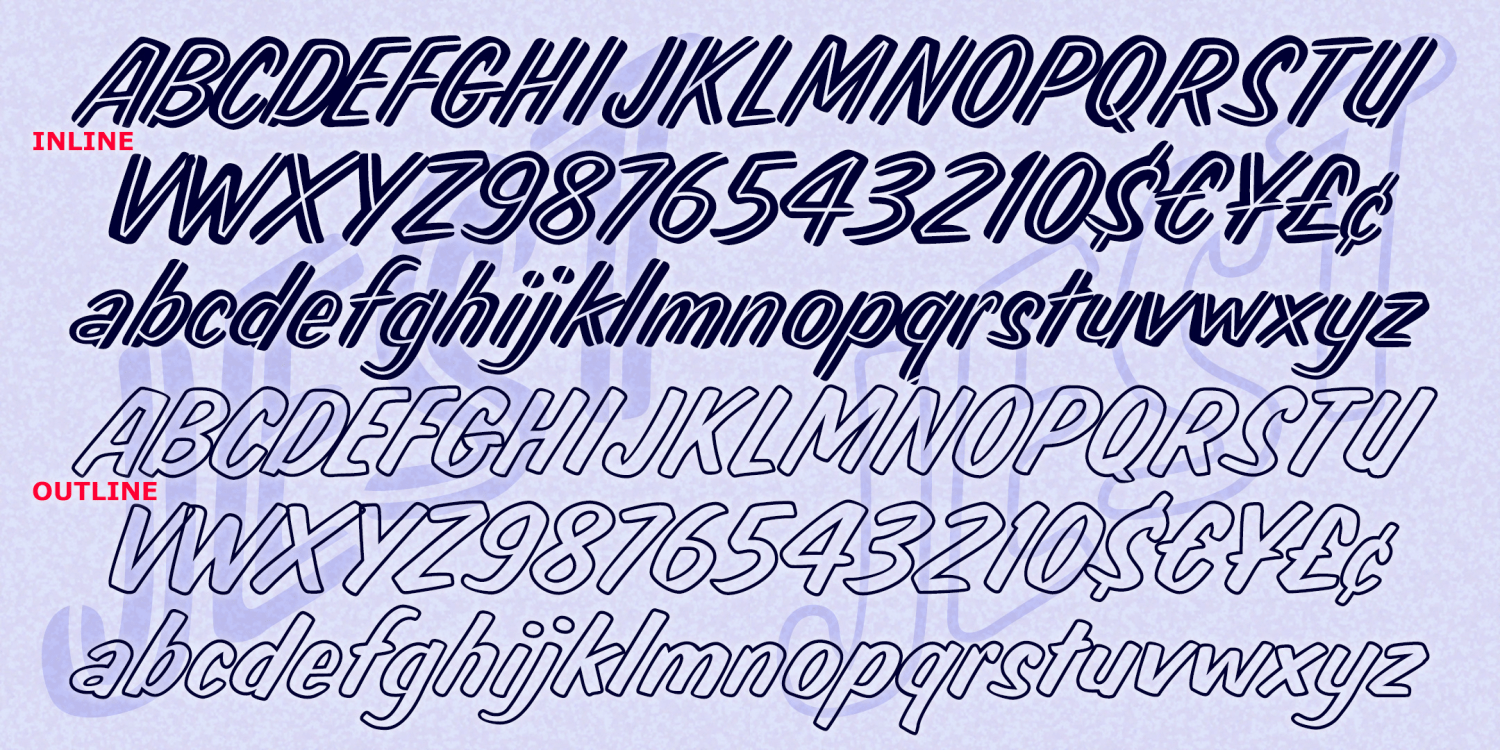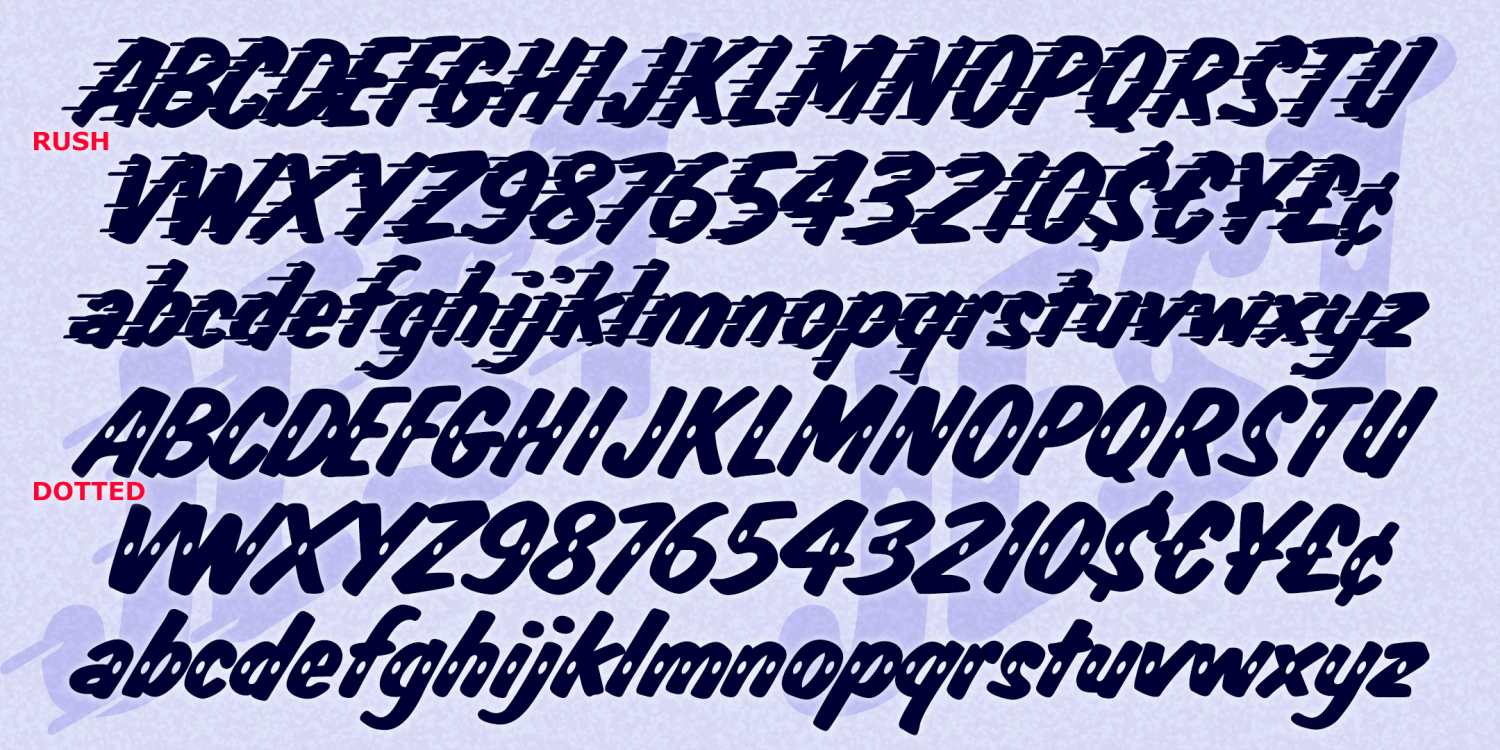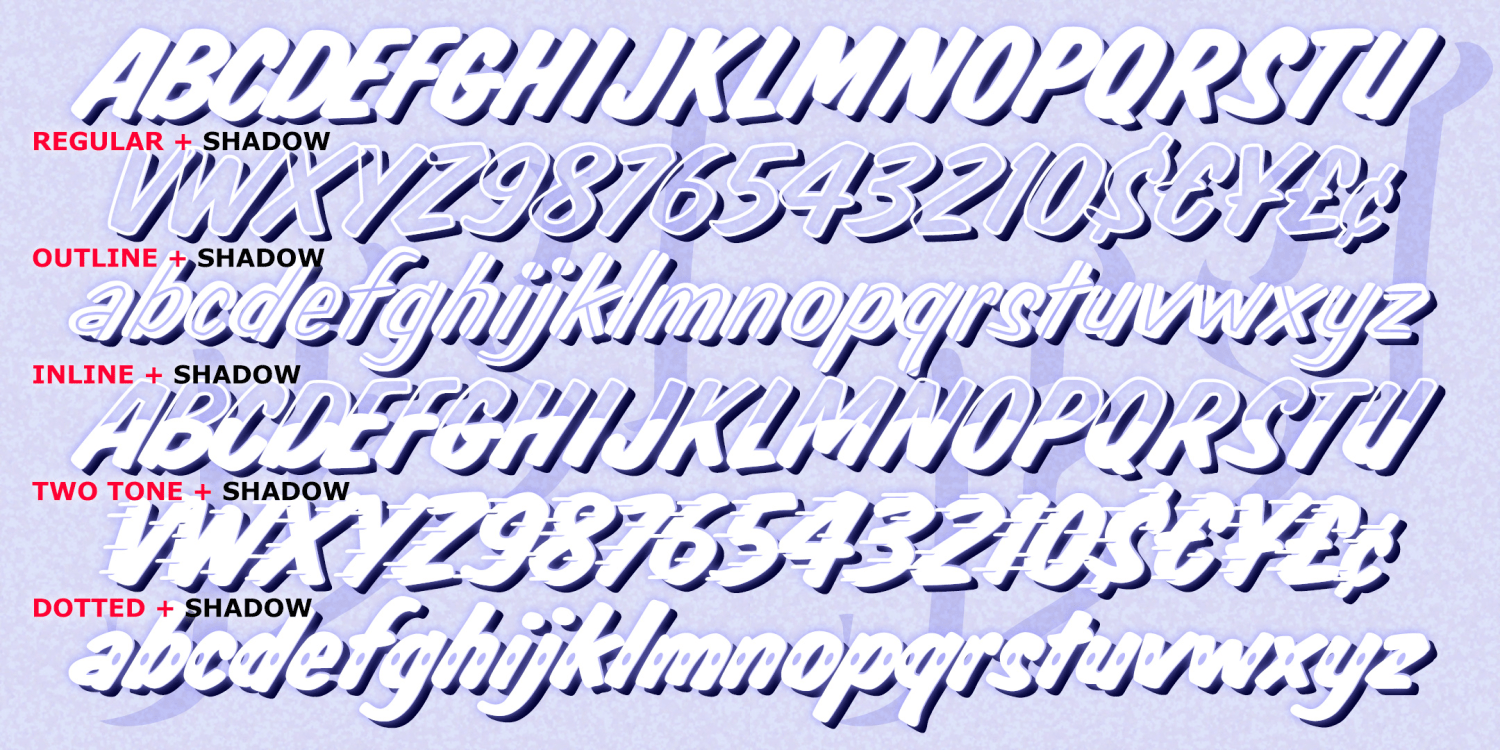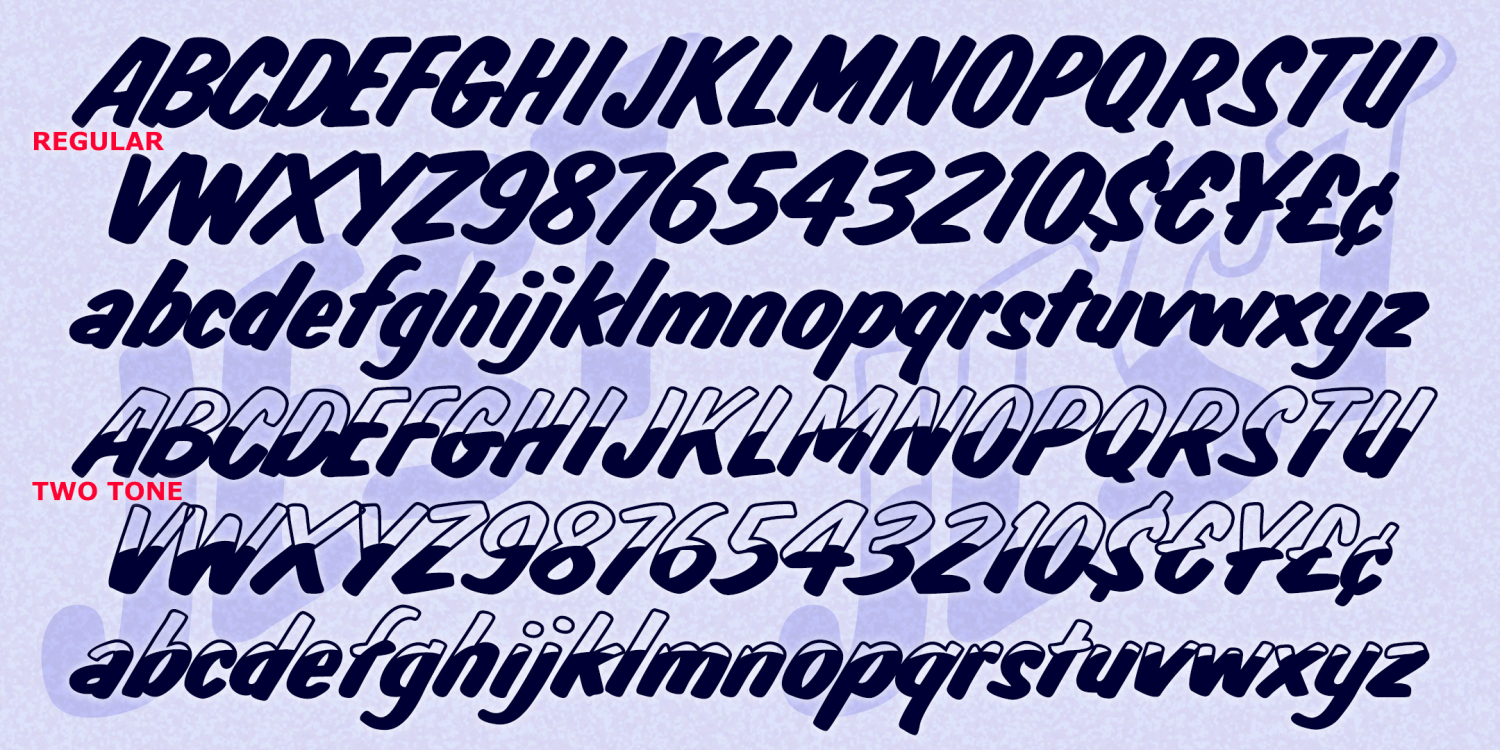
Jest
JEST resembles the bold and deft work of an traditional sign painter. It was inspired by an an analog font called Jet that included the white line. I've redrawn and expanded the set to include Solid, Two Tone, Outline, Inline, Dotted, and Rush versions,…